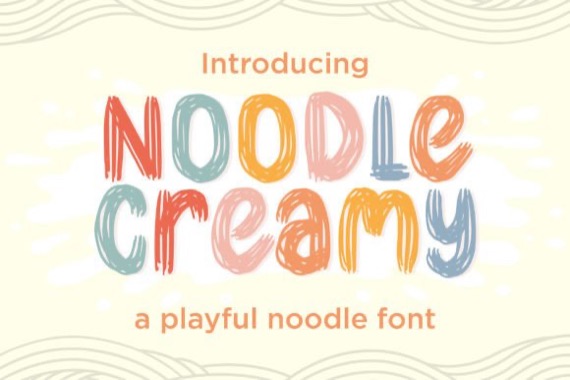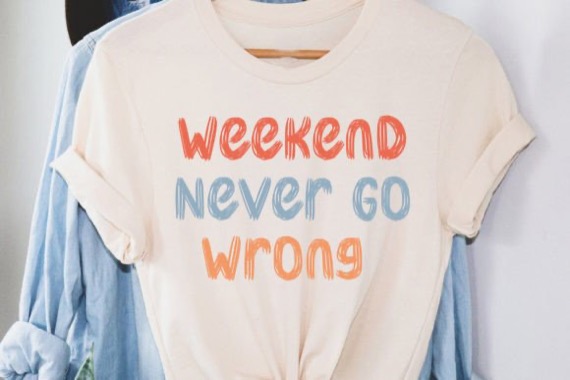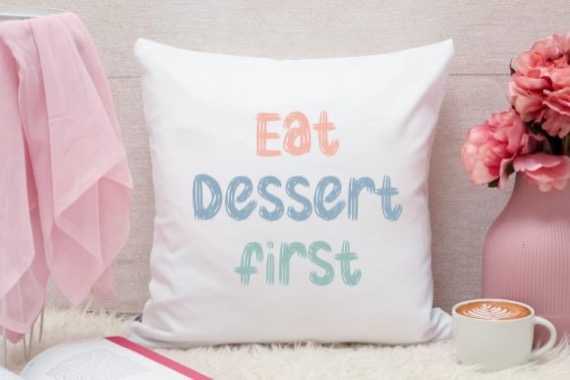
Noodle Creamy is a Playful Noodle Display Font that was created and published by Byemalkan. Noodle Creamy is perfect for product packaging, branding project, magazines, social media, weddings, or just used to express words above the background.
Noodle Creamy Brush Handwritten Font